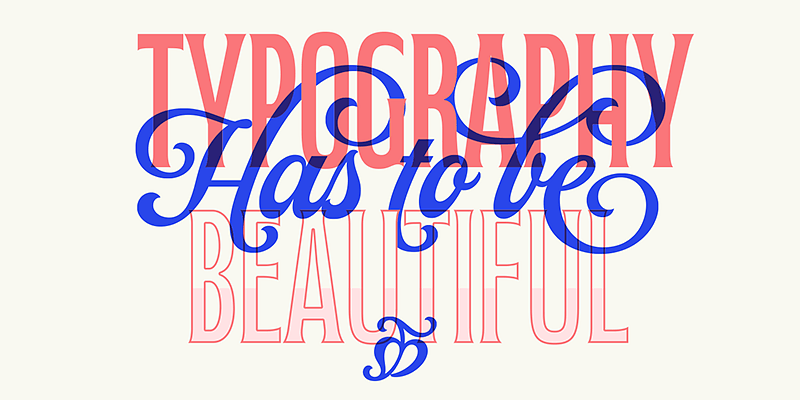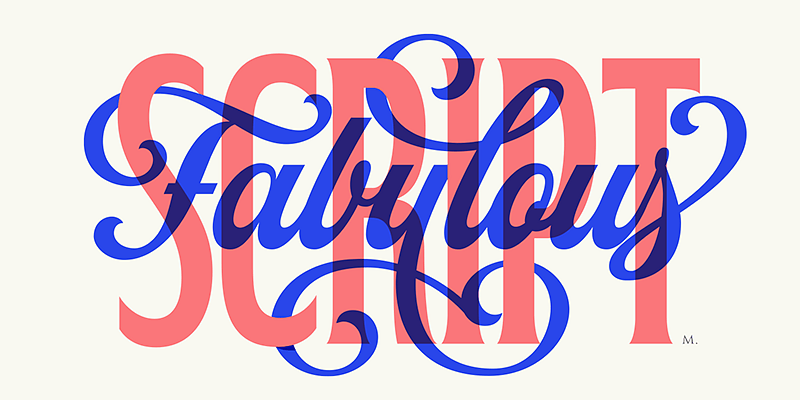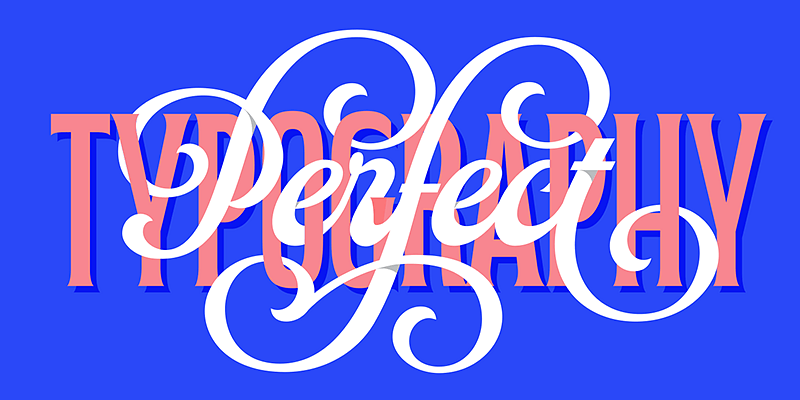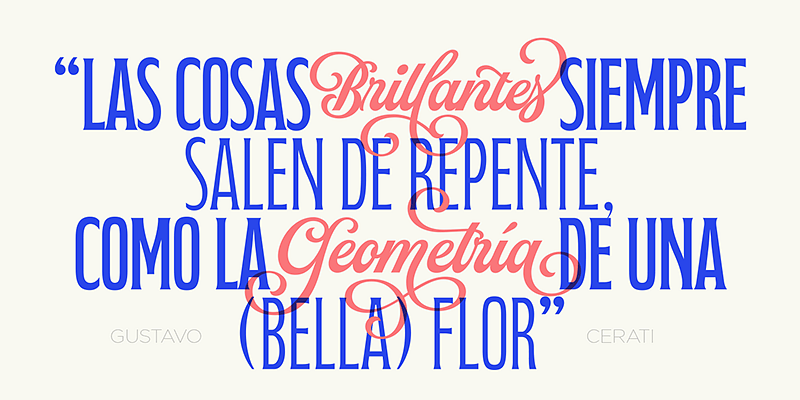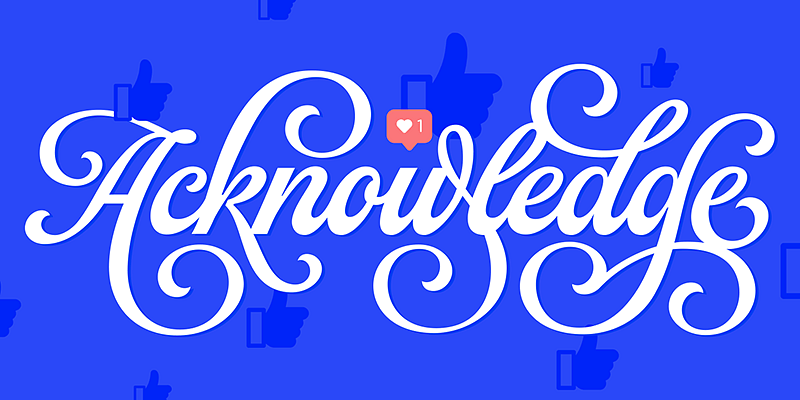
Sproviero Type
Sproviero Type has created an award-winning catalog of intricate, beautiful, and modern typefaces, leaving no detail untouched. Type designer Maximiliano Sproviero applies his passion for calligraphy and lettering into a striking collection of individual typefaces that are fantastically decorated, imaginatively swashed, and breathtakingly original. Whatever the product or media, the fonts from Sproviero Type will help set the stage for your thoughts and ideas to be transformed into reality.